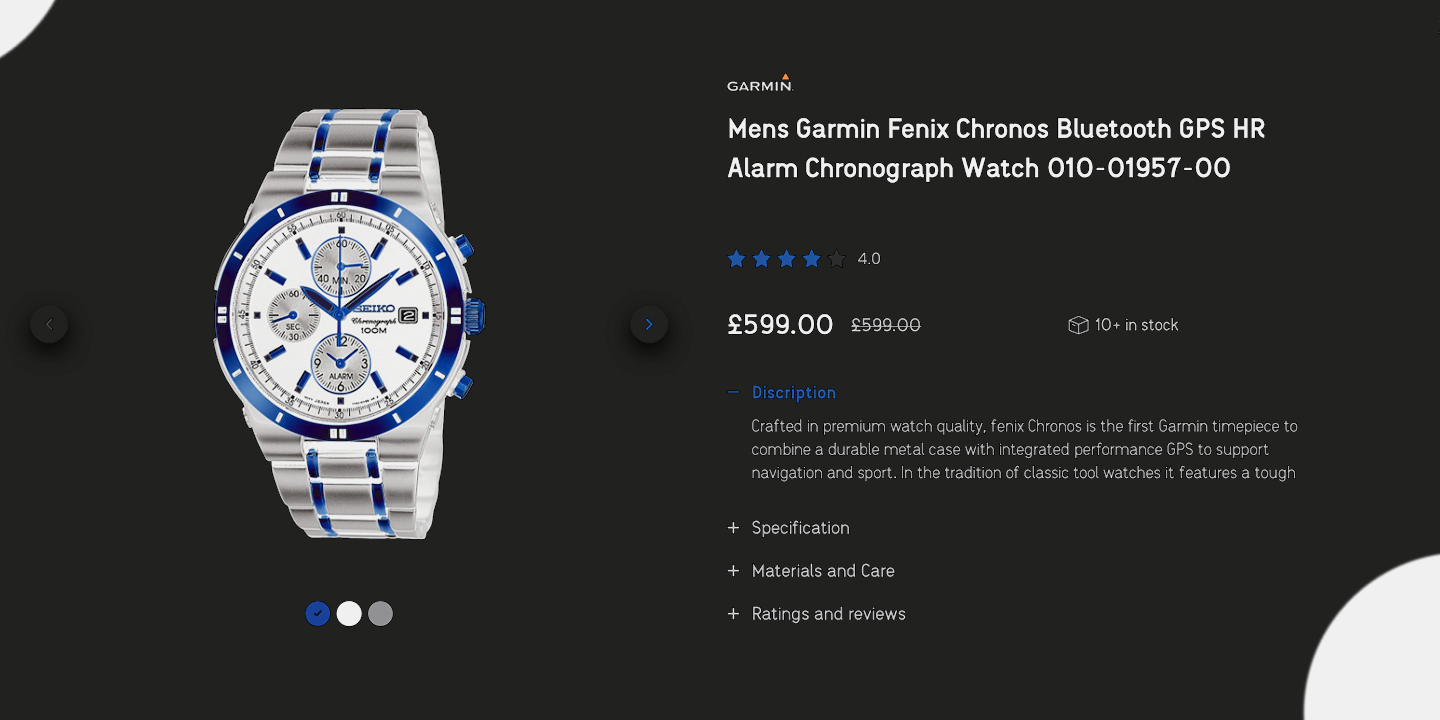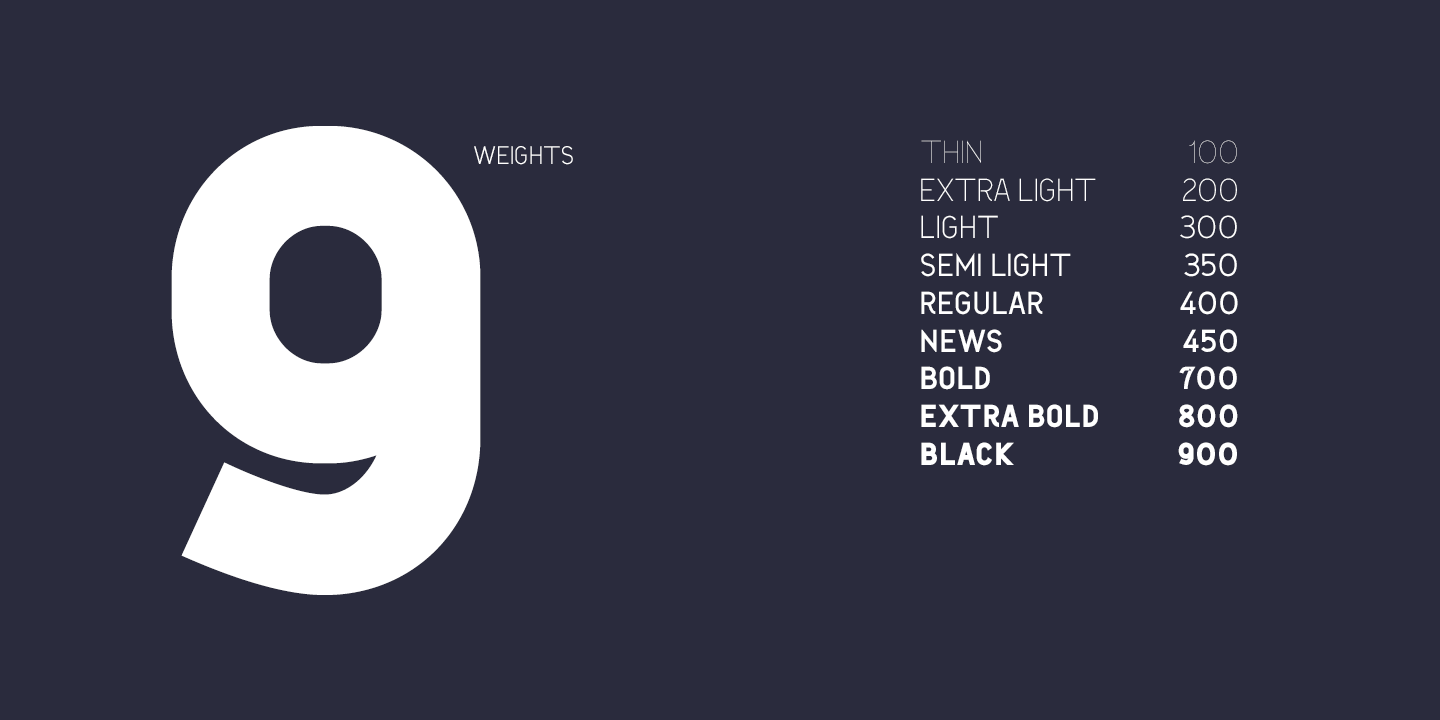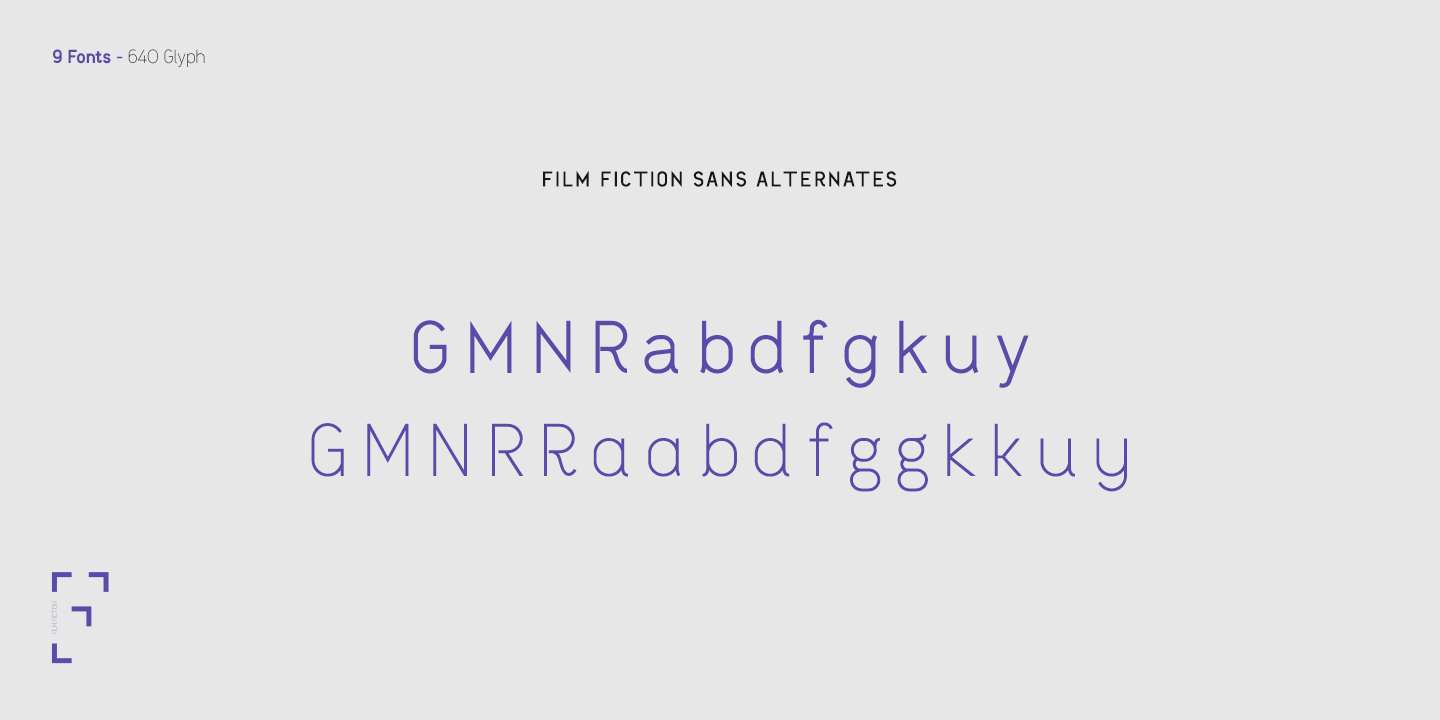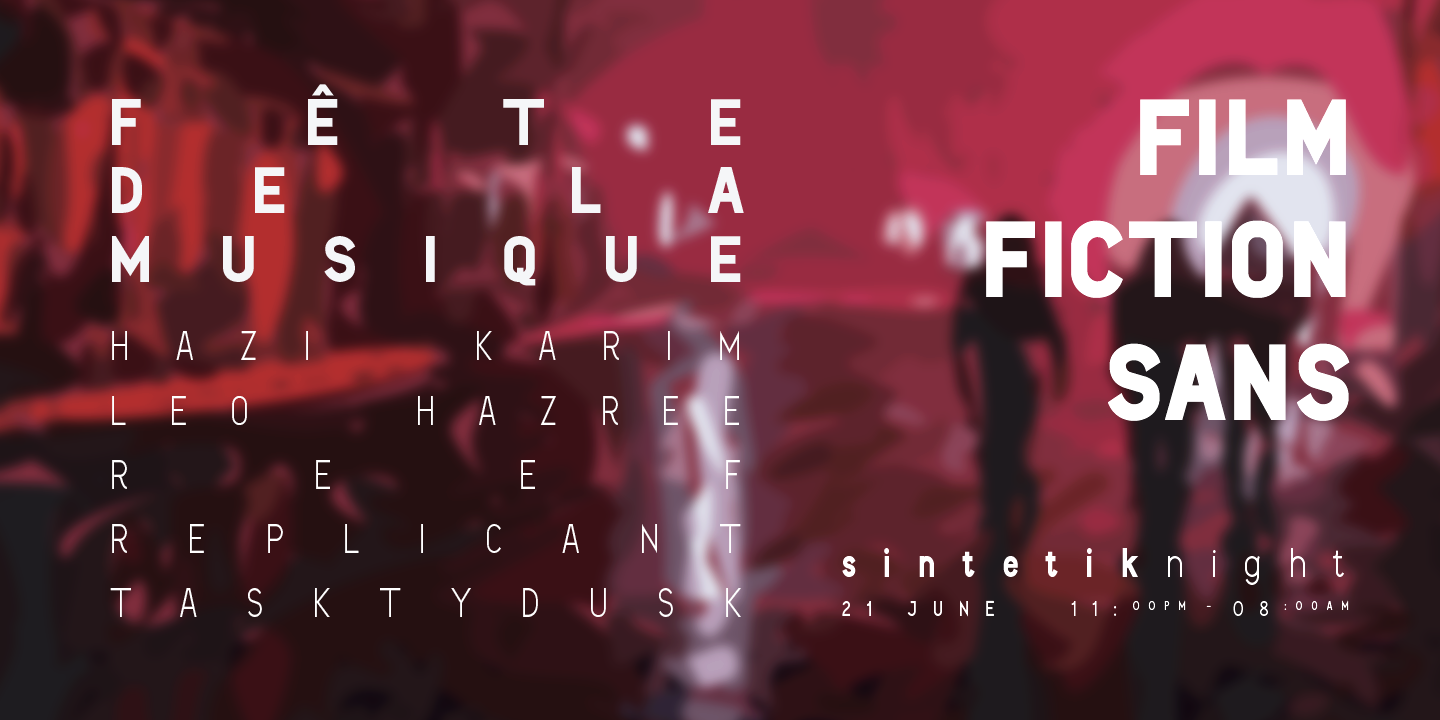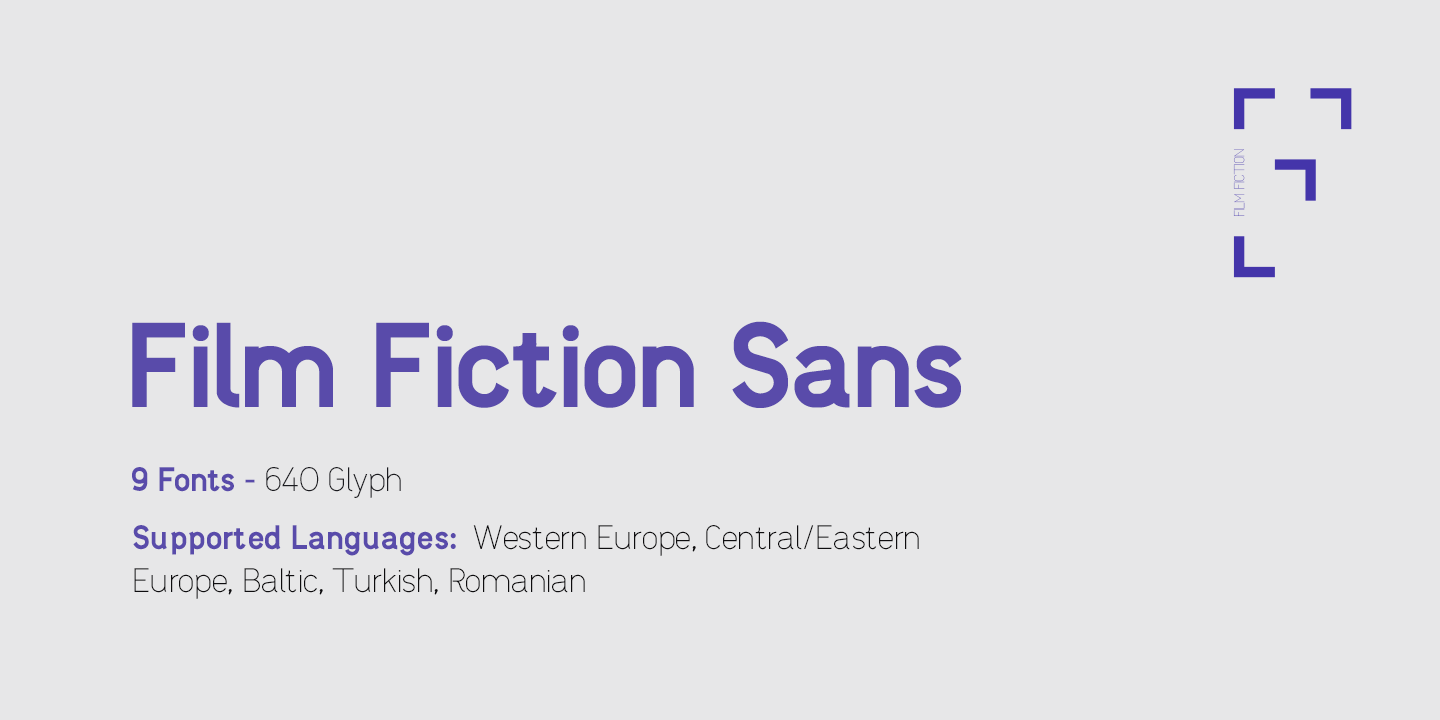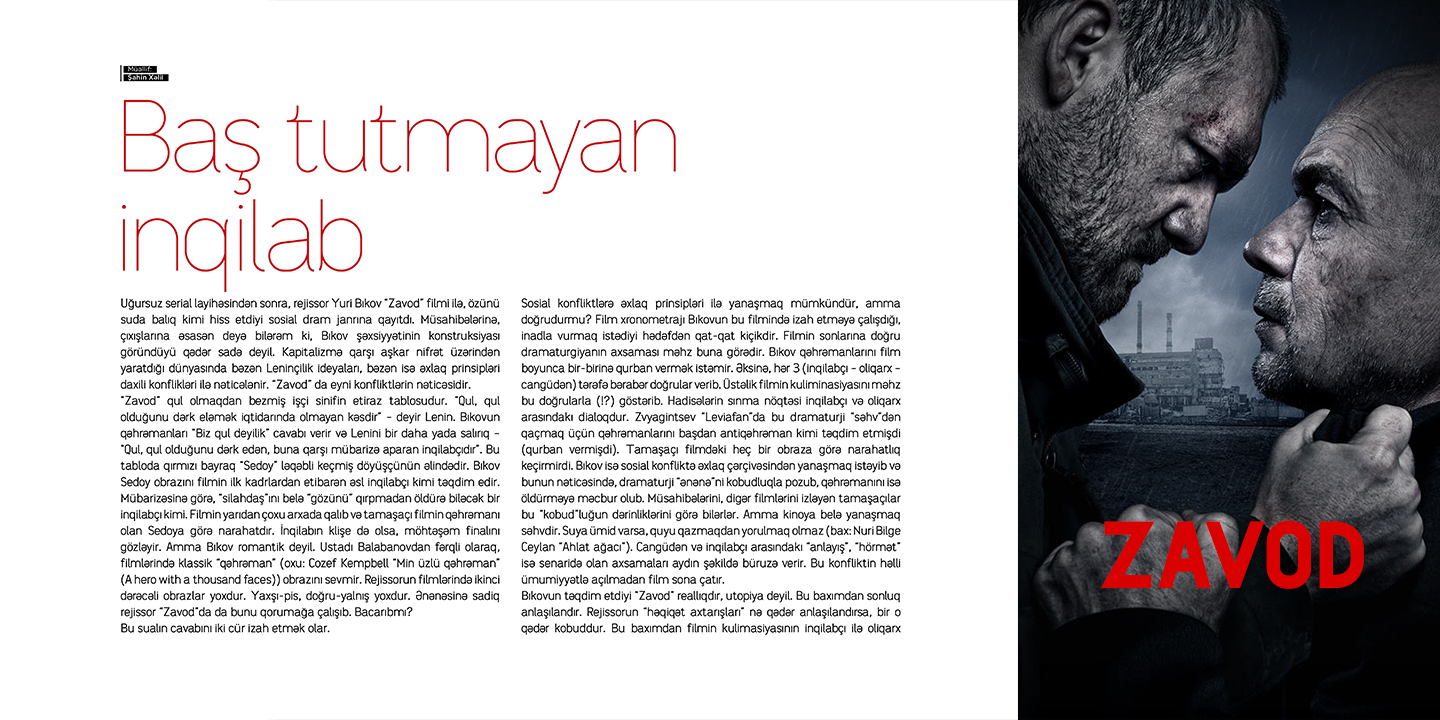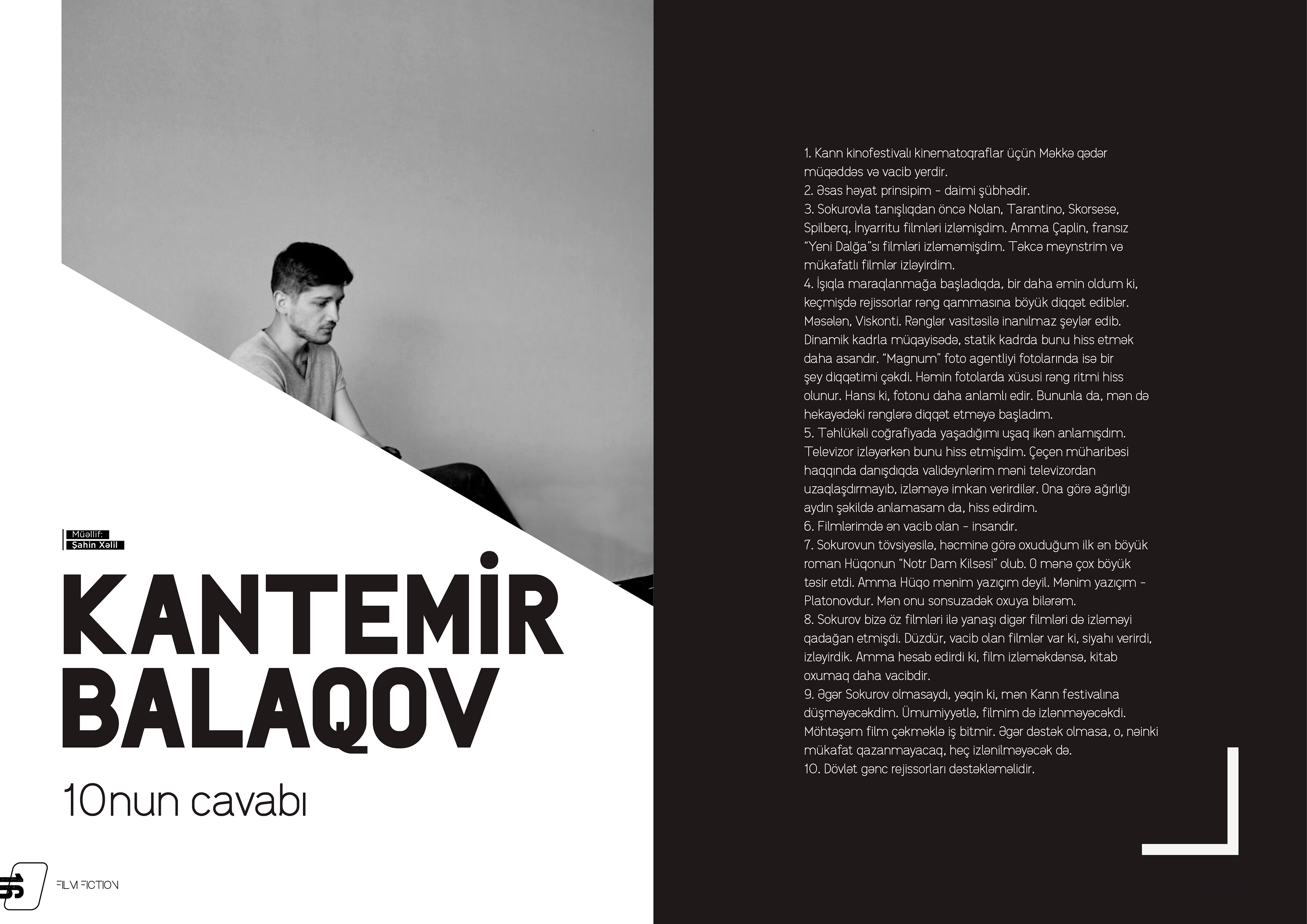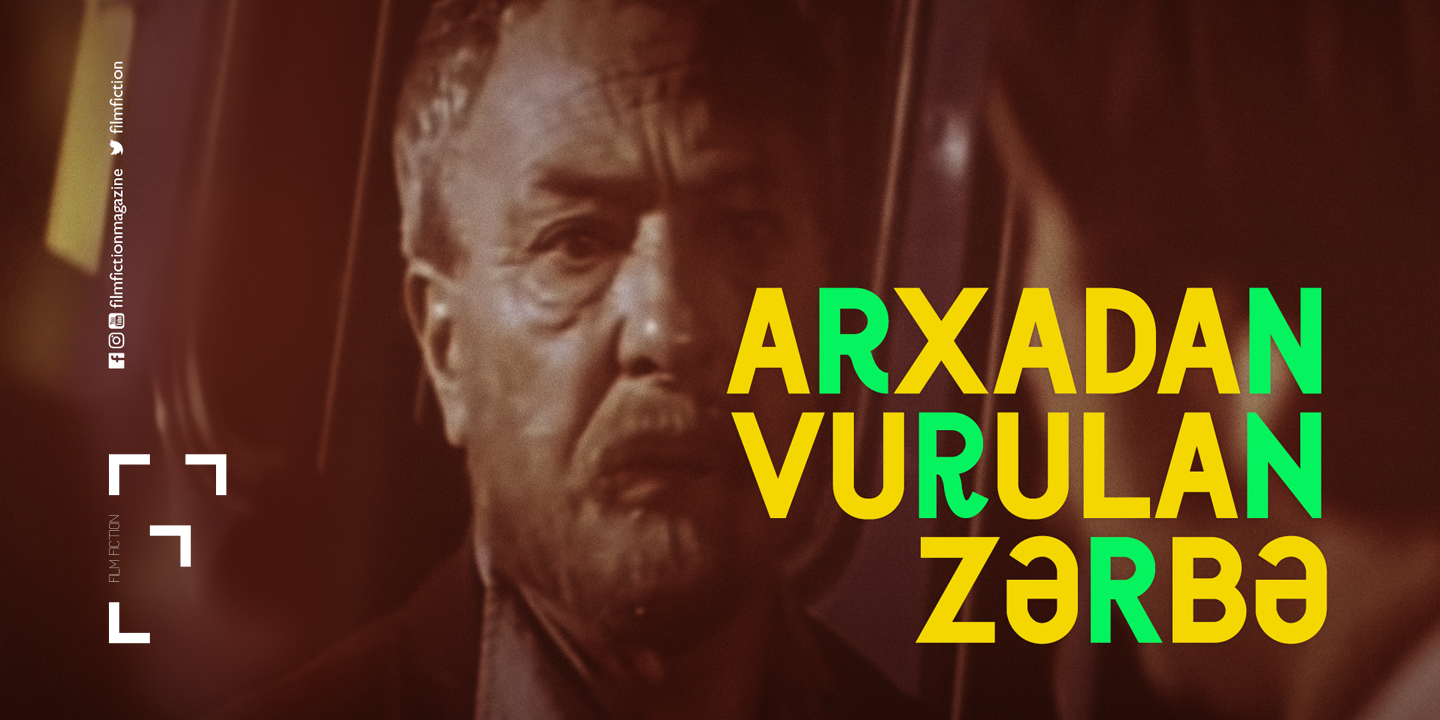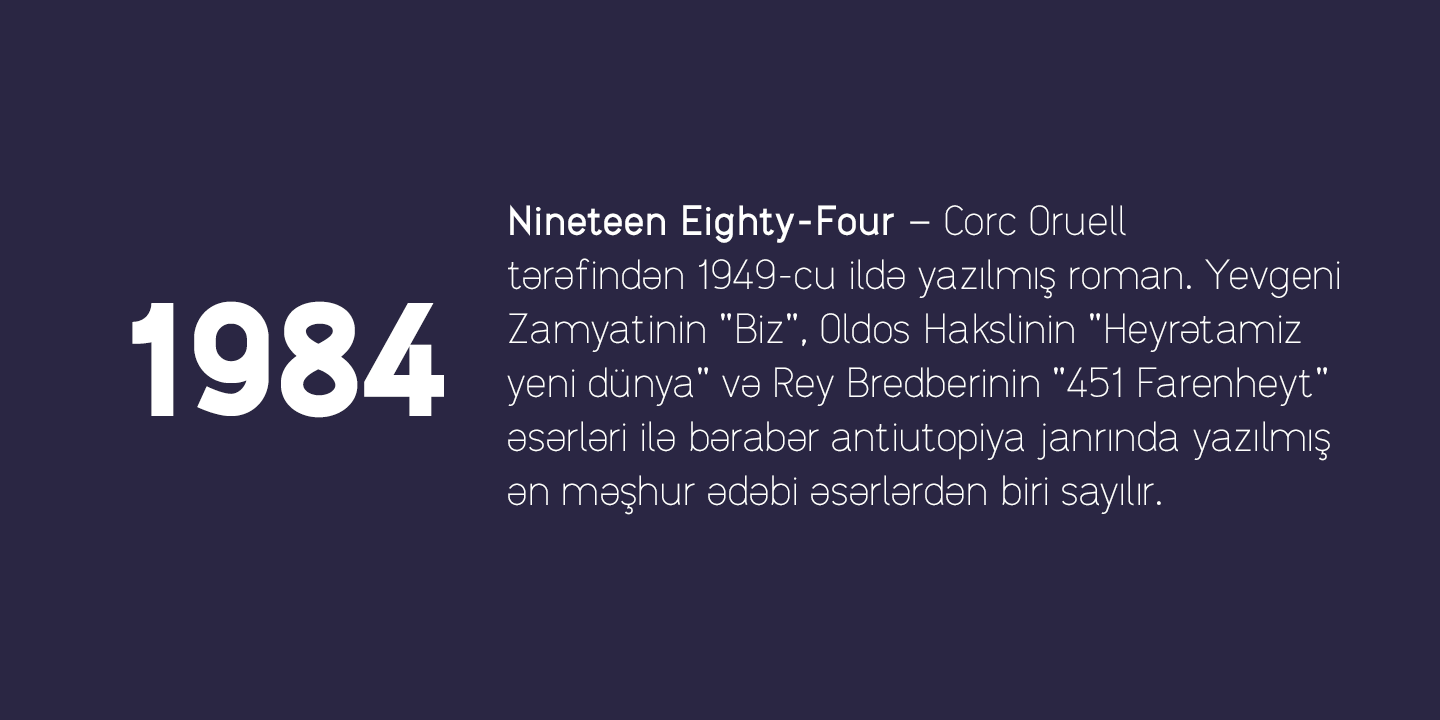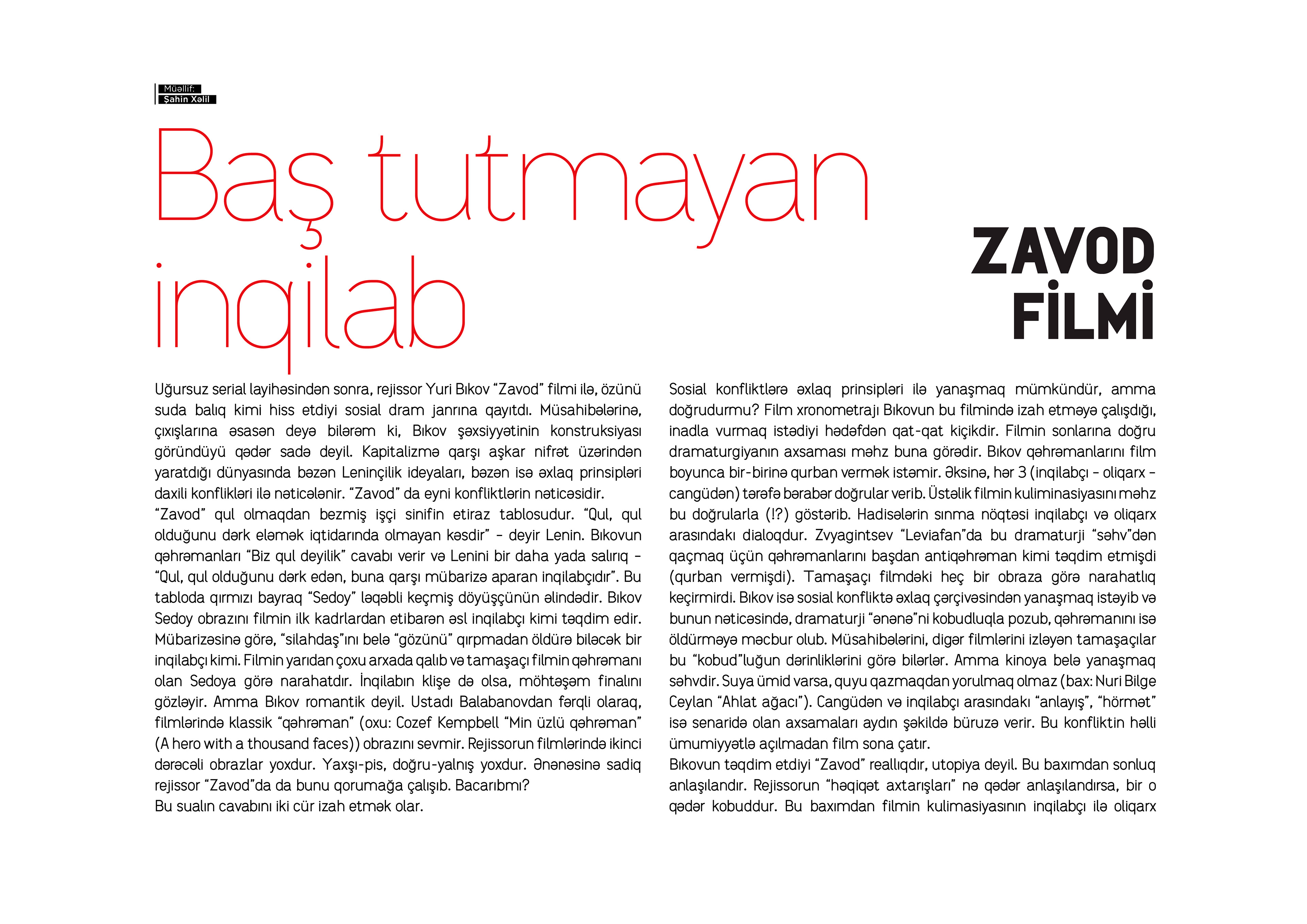
Film Fiction Sans | TYPEFACE
Film Fiction Sans works great for branding, films, magazines, headers, logos, web, badge, packaging, headlines, posters, t-shirt/apparel. Film Fiction Sans offers you options to explore a whole host of applications and gives a real modern feel to any project.